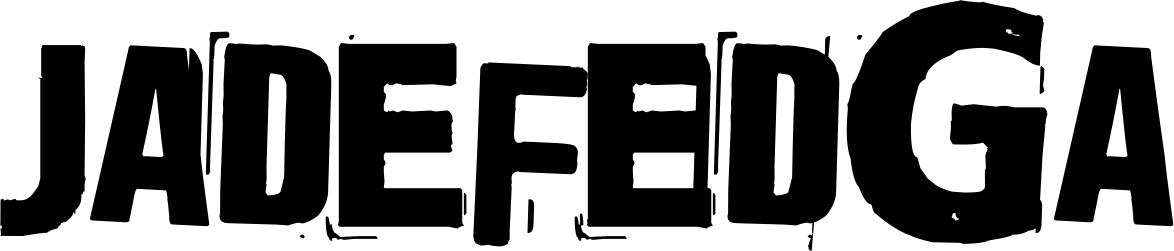
Jadefedga Font
Jadefedga is a distorted font that does not support lowercase letters, in addition, all its characters are designed in three different styles and it has a great variety in this regard.
The letters of this stamp font are slightly skewed, so it simply grabs the audience’s attention and engages them with your content, thus Jadefedga conveys a sense of freshness and excitement. It is really ideal for graphic content such as posters and banner ads.